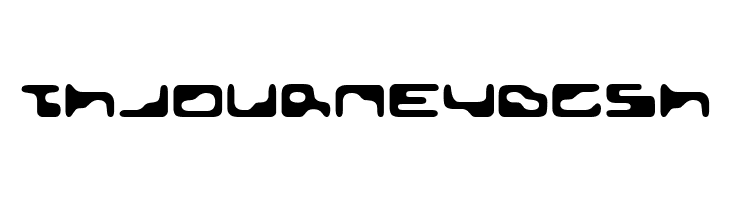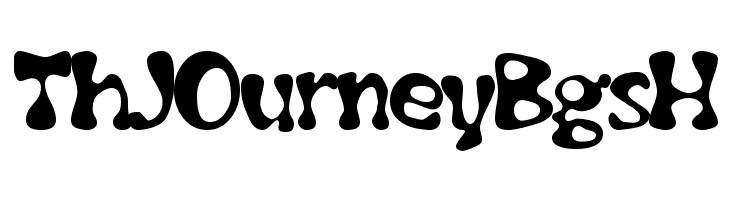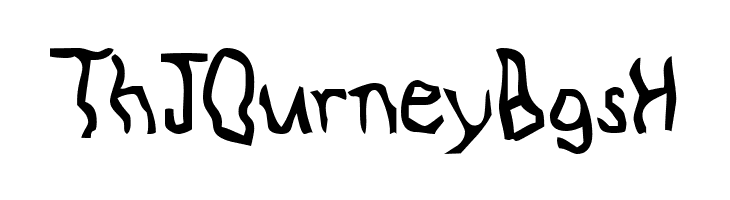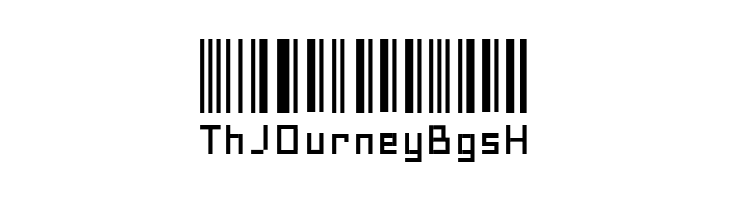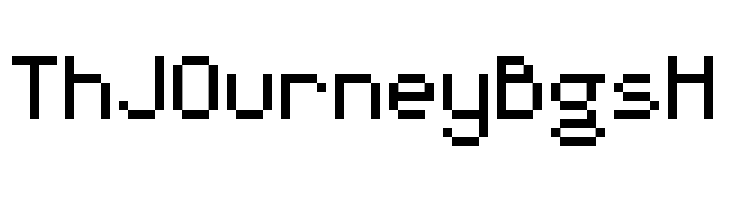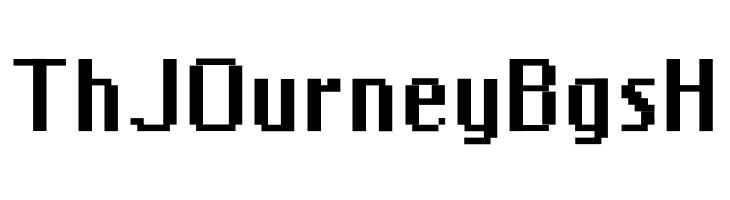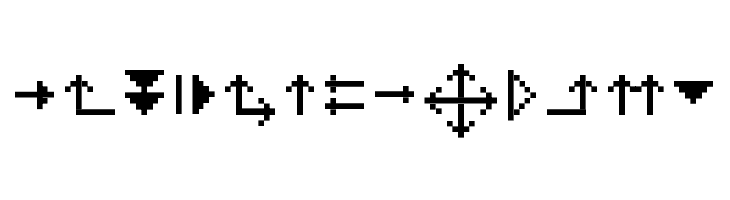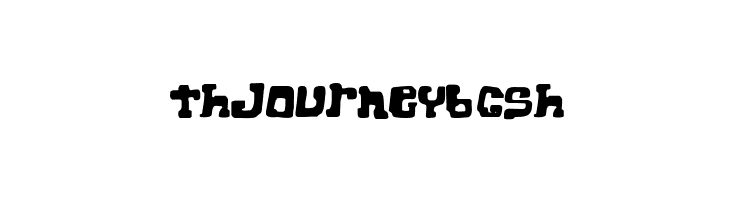
• Golden Girdle
• Flubber
A playful, bubbly font with a fluid, organic design perfect for creative projects.
• Knocked Around
A rugged, hand-drawn font with uneven, jagged lines and a playful, chaotic style.
• Captain Howdy
• Paskowy
A modern, barcode-inspired font with vertical line patterns.
• MiniForma2
A pixelated, retro-style font with a blocky, digital appearance.
• MiniMasa
A pixelated, retro-style font inspired by early digital typography.
• MiniStrzalki
A pixelated, decorative font featuring arrows and geometric shapes.
• 8BIT WONDER Nominal
• Super Chunk Regular